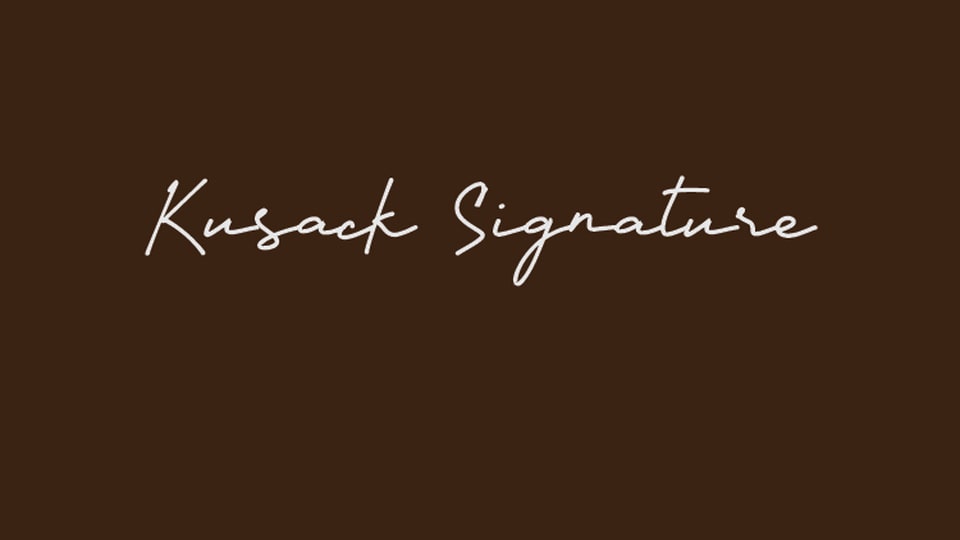
Kusack Signature is the font that strikes a balance between the grace of cursive handwriting and the simplicity of a personal signature. Each character is crafted with flowing, connected strokes that create an effortless, handwritten look, making it perfect for designs that demand a personal, approachable aesthetic.
Whether you’re designing friendly blog headers, casual party invitations, or branding materials that need to convey a sense of ease, Kusack Signature adds a burst of signature-style character and a hint of genuine warmth to every letter.